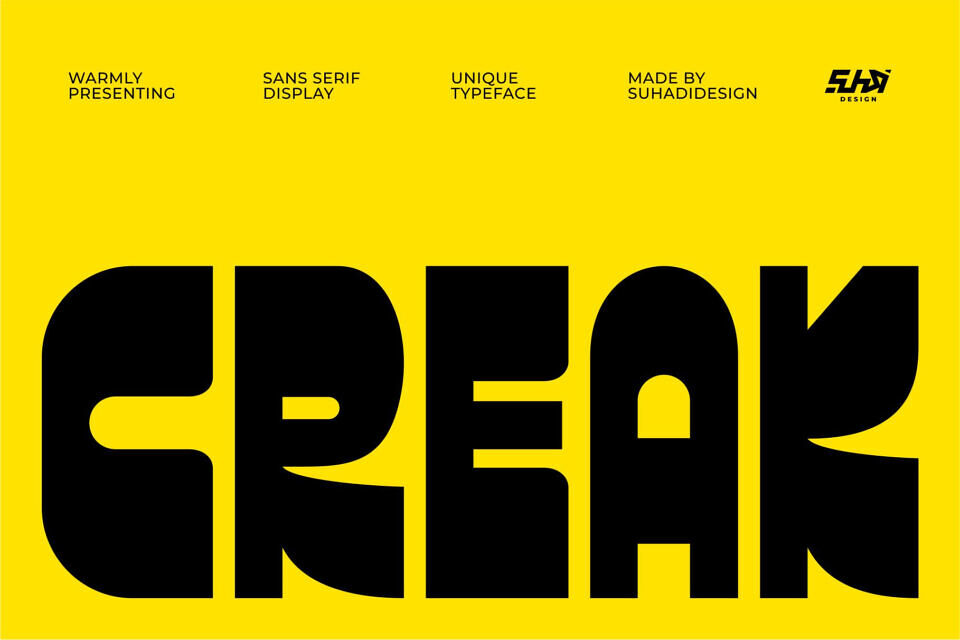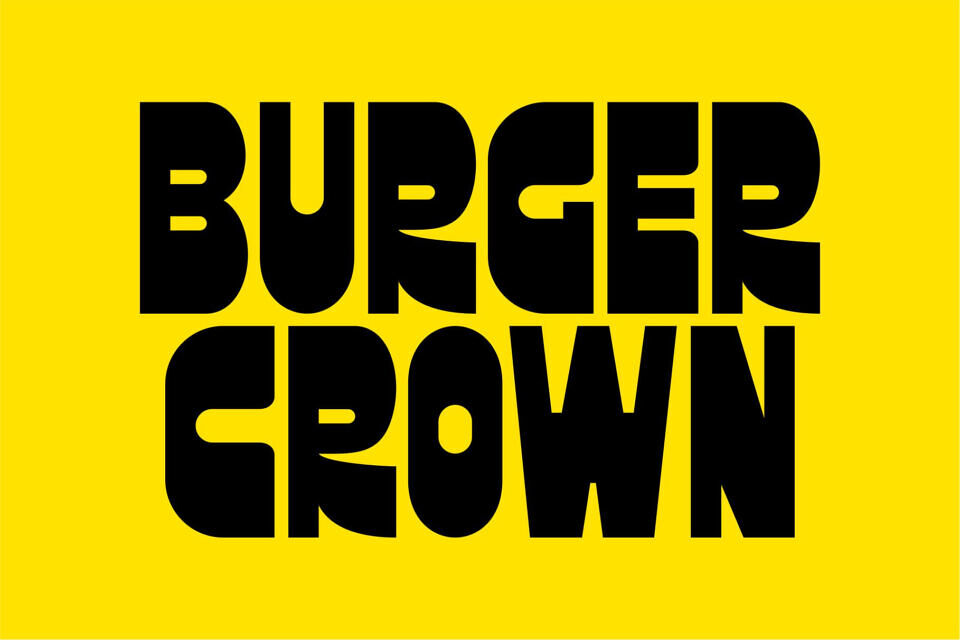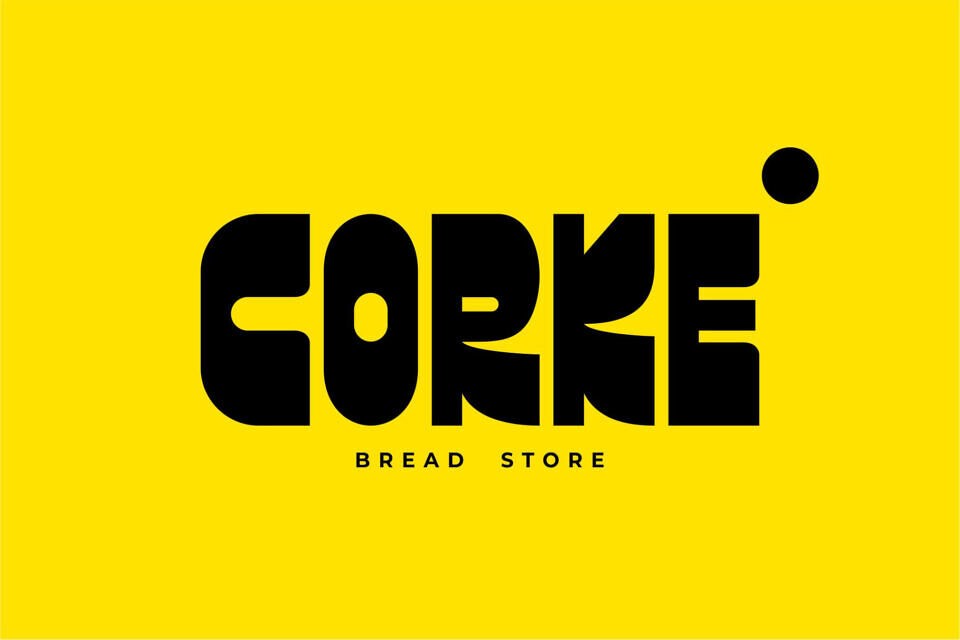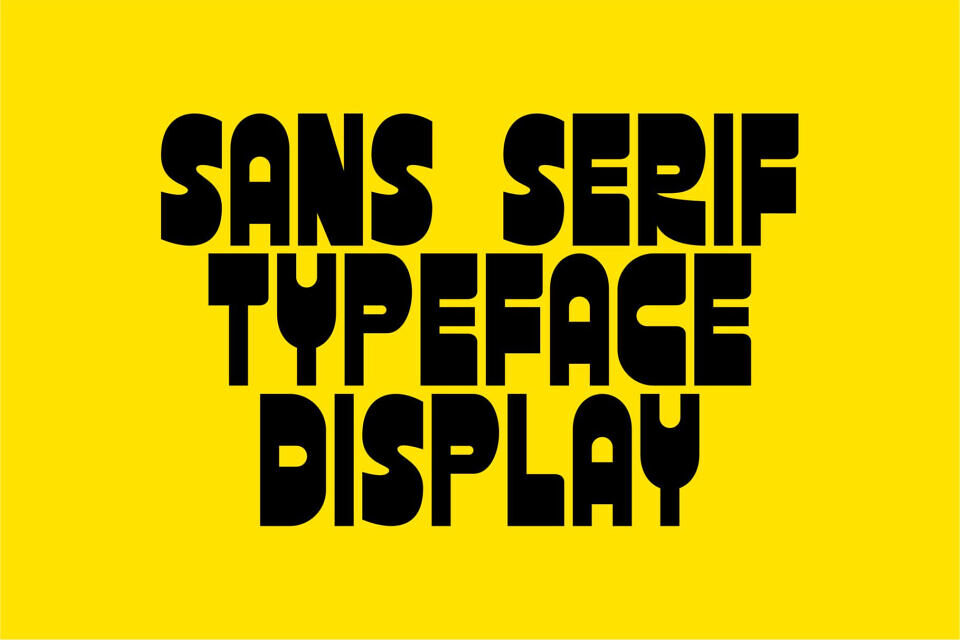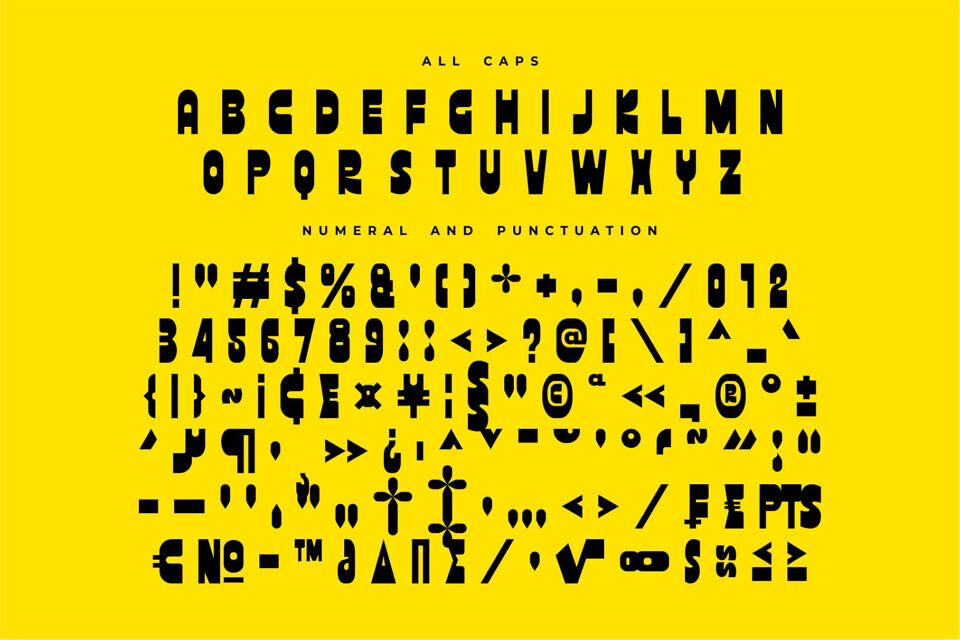
Creak Font
Make a statement with the Creak font, a bold sans serif typeface that commands attention. Its ultra-thick, geometric letters and sharp cutouts create a striking visual impact.
Perfect for avant-garde branding and high-fashion headers, Creak thrives in high-contrast environments and pairs well with minimalist backgrounds. It’s ideal for tech startups, luxury labels, and music covers, adding a professional finish to any design project.